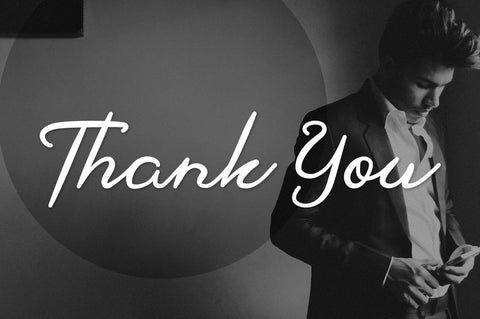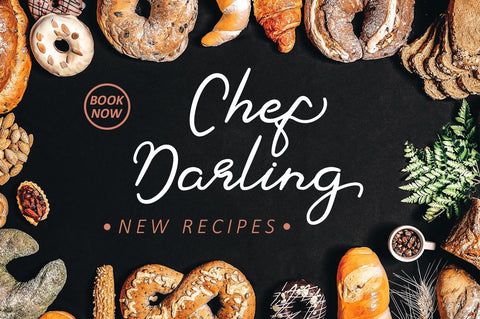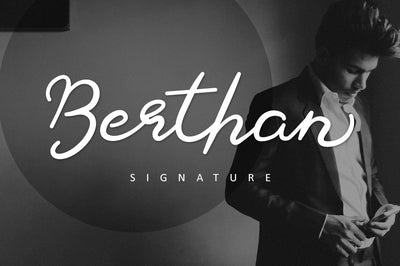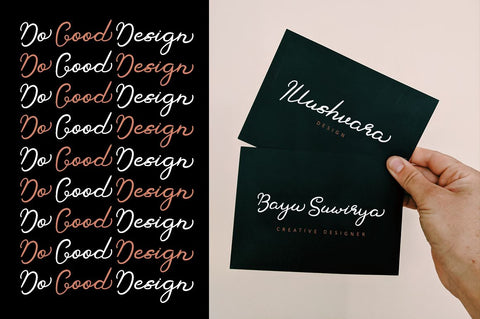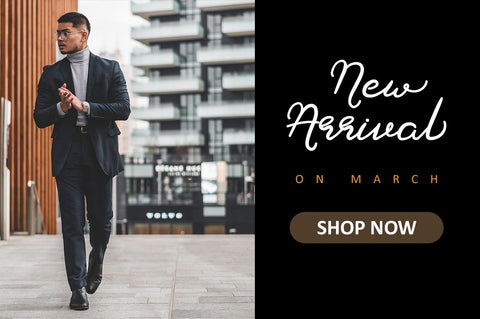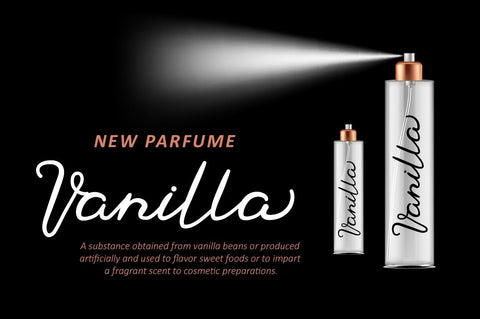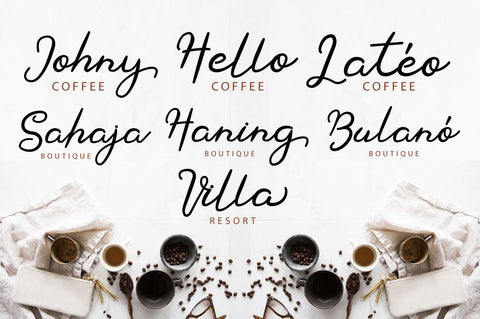
Berthan - Signature Font
Berthan simplifies elegance into one truly outstanding handwritten font. It maintains its classy calligraphic influences while feeling contemporary and fresh. This versatility will appeal to a wide range of crafty ideas, from letterheads and titles to stationery.